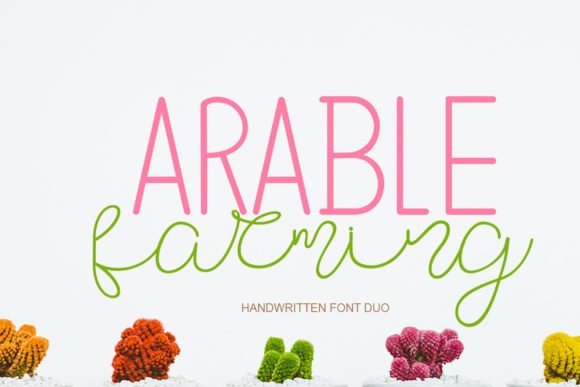
The Perfect Pair for Your Creative Masterpiece
Remember that moment when an idea struck you, and you couldn’t wait to bring it to life? Maybe it was a new logo, a typography-driven poster, or even a beautifully crafted business card. Whatever it was, you wanted it to stand out, to make an impact, and to leave a lasting impression. That’s where the perfect font comes in – a crucial element that can make or break the entire design.
Meet Arable Farming Font, a lovely duo font that combines the elegance of a sans serif with the charm of a script. Expertly designed to elevate your creations, this font has the potential to take your ideas further than you ever thought possible. Whether you’re a seasoned designer or just starting out, Arable Farming Font is a valuable addition to your toolkit, helping you to craft designs that truly shine.
Arable Farming Font Key Features
- Font Family: Arable Farming Font is a custom-designed font family, consisting of multiple weights and styles to cater to various design needs.
- Size and Resolution: The font family is available in 5 different sizes, ranging from 18pt to 72pt, and supports resolutions up to 300 DPI for crisp and clear display.
- Unique Characteristics: Arable Farming Font features a distinctive, hand-drawn design with subtle texture and imperfections, giving it a unique and organic feel.
- Weight and Style Options: The font family includes 7 different weights (Thin, Light, Regular, Medium, Bold, Heavy, and Black) and 3 styles (Italic, Oblique, and Regular) to provide versatility in design applications.
Arable Farming Font Review
Overall, I’d say the Arable Farming Font has a lot of potential, but it’s not without its flaws. Let’s dive in and see what works well and what doesn’t.
- Rustic charm – The font has a unique, hand-drawn feel that’s perfect for rural or agricultural themes.
- Legibility – Despite its rustic charm, the font is surprisingly easy to read, even at smaller sizes.
- Expressive character set – The font has a wide range of characters, including some fun and quirky symbols.
- Limited font weights – The font only comes in a few weights, which can limit its versatility.
- Lack of italic and bold-italic styles – These styles are missing, which can make it harder to use the font in certain situations.
- Some character inconsistencies – A few characters, like the ampersand and the tilde, don’t quite match the rest of the font.
Overall, I’d give the Arable Farming Font 3.5 out of 5 stars. While it’s a unique and charming font, its limitations hold it back from being a top contender in the font world.
To get the most out of the Arable Farming Font, try:
- Pairing it with earthy colors and natural textures.
- Using it for headings and titles to add emphasis.
- Experimenting with different font sizes and styles.
The Arable Farming Font is perfect for:
- Agricultural and farming-related content.
- Environmental and sustainability-focused projects.
- Rural-themed branding and marketing materials.